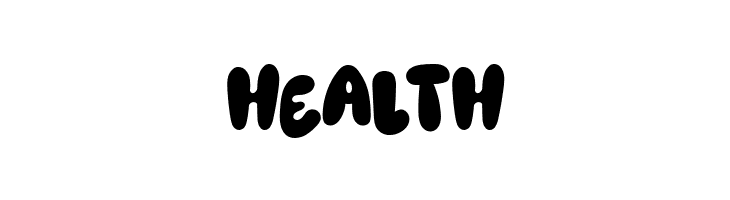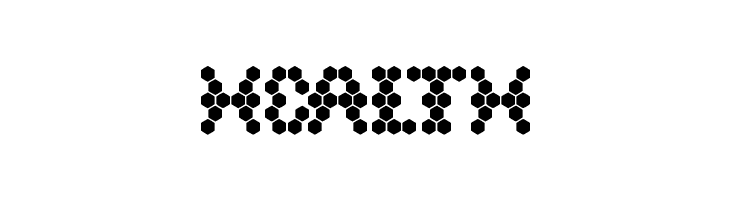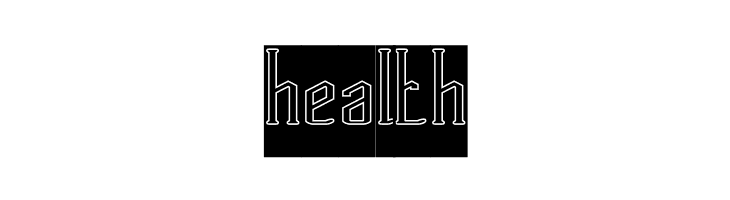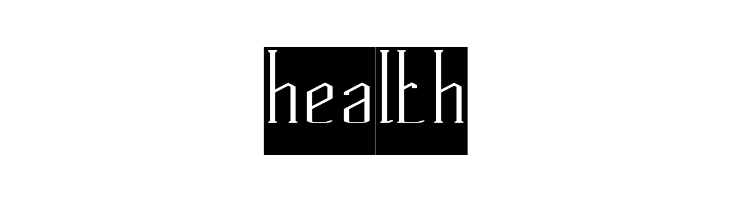
• HERITAGE Bold Italic
A bold, italicized font with angular, modern design elements.
• HERITAGE Italic
A dynamic italic font with angular, elongated letterforms and sharp serifs.
• HERITAGE-Hollow
A geometric, hollow font with angular lines and a modern aesthetic.
• HERITAGE-Hollow-Inverse
A modern, hollow, inverse font with geometric structure and consistent stroke width.
• HERITAGE-Inverse
A modern, angular serif font with tall, narrow letterforms and strong vertical emphasis.
• HEXAGONAL
A modern, hexagon-patterned font with a bold and futuristic style.
• hey girl
A lively, expressive handwritten font with fluid, sweeping strokes.
• Heyam
( Fonts by FG Studios )
A playful, bold font with rounded, thick strokes and a cartoonish style.
• HFF Young Wanna
• HFF Young Wanna Plain